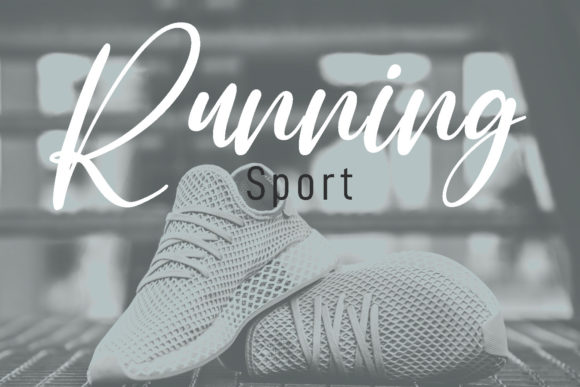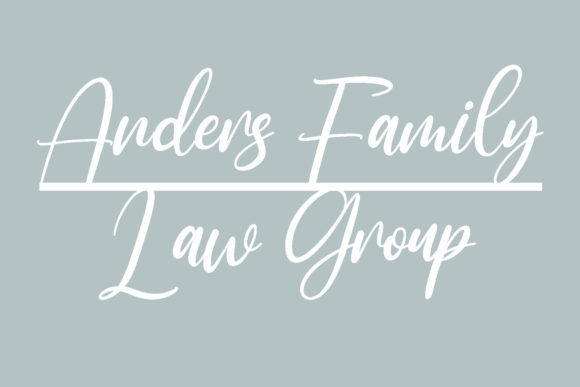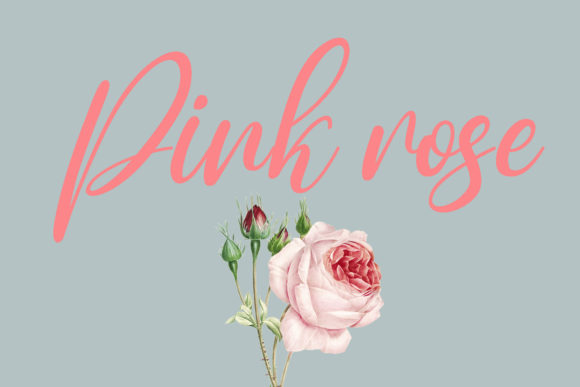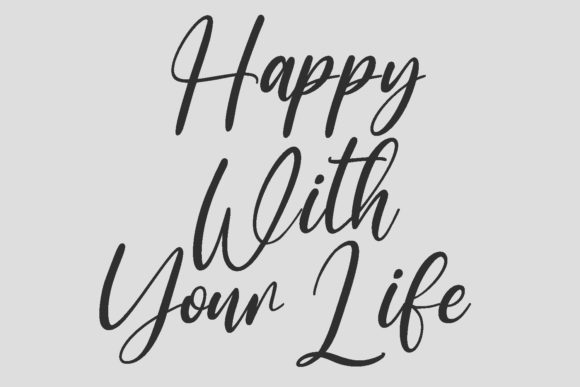
About Ovalshapes Script Font
Introducing “Ovalshapes Script,” a stylish and dainty script font designed to add a touch of elegance to your projects. With its delicate curves and graceful strokes, Ovalshapes Script is perfect for a wide range of applications, including logos, branding projects, labels, photography, watermarks, special events, and more.
This font’s stylish and sophisticated appearance makes it suitable for various design contexts. Whether you’re creating a professional logo or adding a touch of charm to your photography, Ovalshapes Script adds a sense of refinement and beauty to your projects.
With its versatility and dainty script taste, Ovalshapes Script enhances the visual appeal of any design. Its flowing lines and elegant shapes create a captivating look that is sure to impress your audience.
Experience the beauty and versatility of Ovalshapes Script and watch as it transforms your projects into stunning visual masterpieces. Whether you’re a professional designer or a creative enthusiast, this font invites you to explore new possibilities and express yourself with confidence and style.
Unlock the full potential of your designs with Ovalshapes Script and let its stylish and dainty script font elevate your projects to new heights. With its elegance and versatility, this font is sure to become a cherished addition to your design toolkit, inspiring creativity and sophistication with every use.